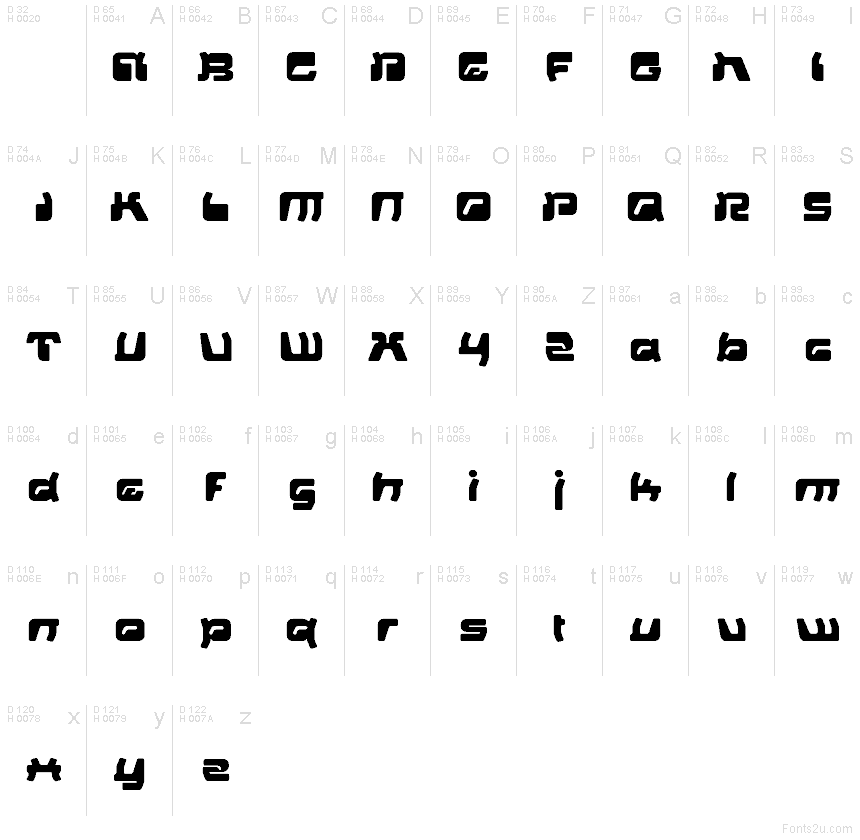
CS Dylan Regular Demo
CS Dylan font by Craft Supply Co. is a free bold retro futuristic expanded display font. Built around chunky, rounded modules with little bite-like cutaways, it looks both soft and mechanical—like glossy plastic molded into techy letterforms. The wide stance and smooth squircular curves create a steady, forward rhythm that reads fast at a glance while feeling distinctly sci‑fi.
Using CS Dylan, headlines snap with impact on sci‑fi posters, esports branding, festival flyers, album covers, tech packaging, and streaming thumbnails. This free font shines when set big with tight tracking; let the expanded shapes breathe on generous margins. For body copy, pair it with a neutral grotesk or a compact sans to balance the bold, spacey personality.